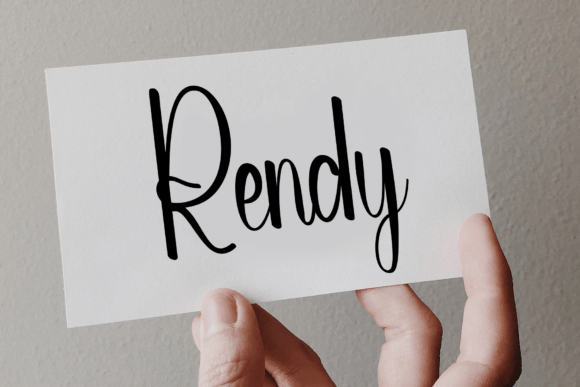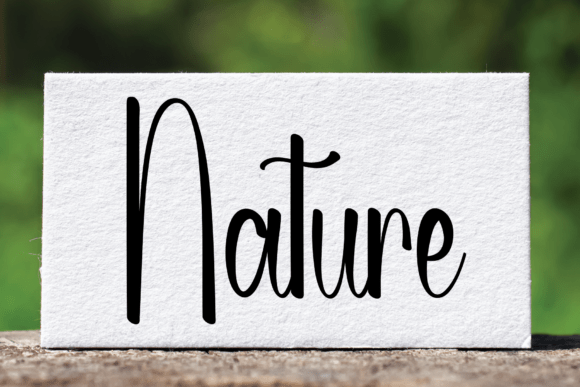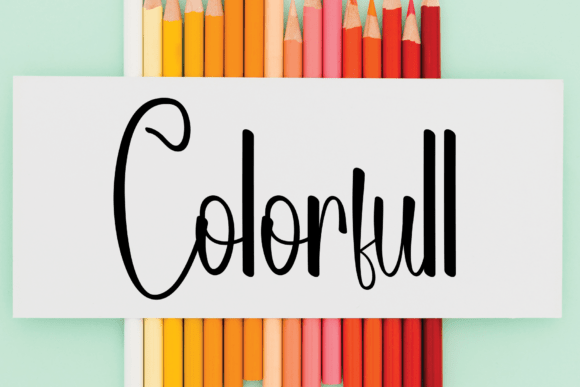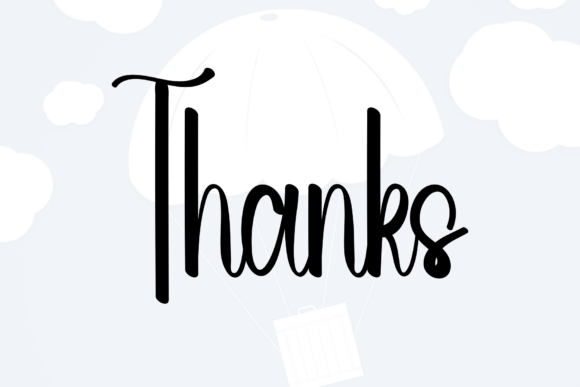
Unleashing the Power of Whimsy in Design
Have you ever stared at a blank page, pen in hand, waiting for inspiration to strike? For many creatives, those moments of blank-page anxiety can be the spark that sets off a chain of innovative ideas. It’s in these moments that the perfect font can make all the difference, elevating your design from bland to grand.
Enter Bridged Sky Font, a light and airy handwritten typeface that embodies the carefree spirit of a gentle breeze. With its tall, slender proportions and delicate connections, this font is a breath of fresh air for designers seeking to add a touch of modern elegance to their projects. Whether you’re crafting a boutique brand identity or creating inspirational social media quotes, Bridged Sky Font is the perfect choice to bring your vision to life.
- Unique Characteristics: Bridged Sky Font features a unique blend of modern and minimalist design elements, with a focus on clean lines, geometric shapes, and subtle texture.
Bridged Sky Font Review
At first glance, the Bridged Sky Font seems like a beautiful addition to any digital design project. ✨ The intricate connections between the letterforms are visually appealing and could add a unique touch to headers or titles.
One of the strengths of the font is its versatility. ✨ It comes in various weights, from light to bold, making it suitable for a wide range of applications. Additionally, the font is well-suited for both print and digital media.
- ⚠️ The font may be too ornate for some designs, which could make it difficult to read at smaller font sizes.
- ⚠️ The connections between the letterforms can sometimes make it challenging to pair the font with other typefaces.
- ⚠️ The font family is not as extensive as some other popular font families, which may limit its usability in certain situations.
Overall, the Bridged Sky Font is a beautiful and versatile font that can add a unique touch to digital designs. However, its limitations may make it less suitable for certain projects. As with any font, it’s essential to consider the specific needs of your design and weigh the benefits against the potential drawbacks.
The Bridged Sky Font is ideal for use in graphic design, branding, and marketing materials. Some common use cases include:
– Creating eye-catching headlines and titles.
– Designing logos and brand identities.
– Adding a touch of elegance to presentations and reports.
– Creating custom typography for social media and website graphics.